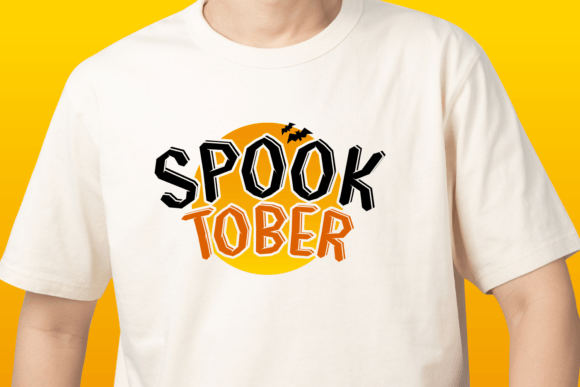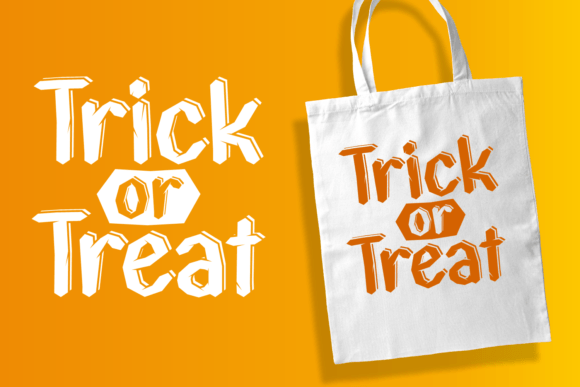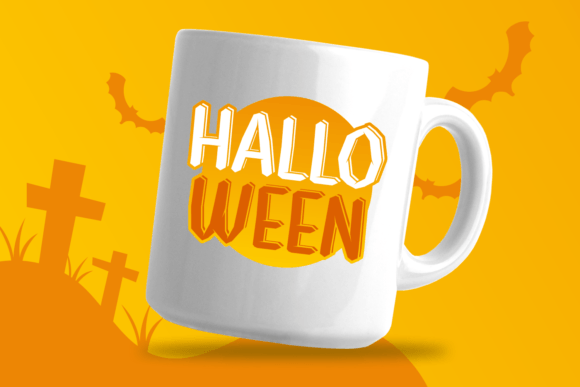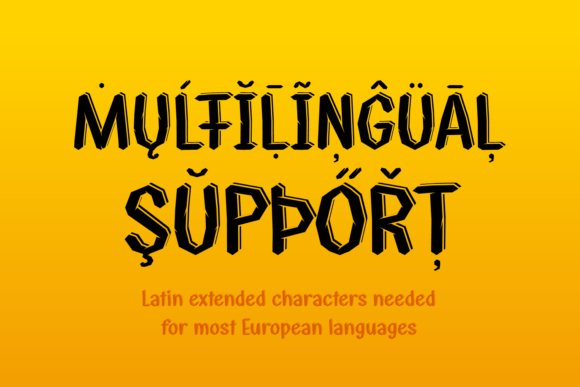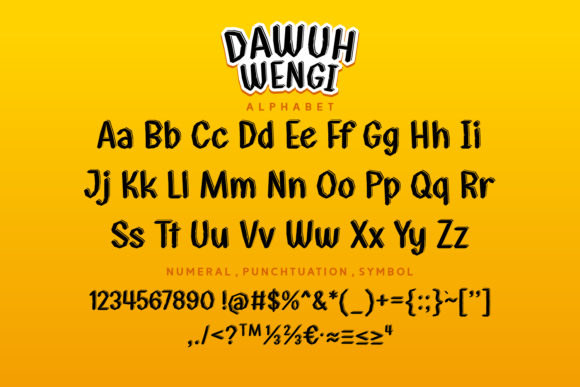
Dawuh Wengi Font: A Quirky and Versatile Display Font for Designers and Crafters
If you’re a designer or crafter looking for a unique and interesting display font to elevate your projects, look no further than Dawuh Wengi. This quirky font is sure to turn heads with its distinctive style, which works incredibly well in a wide variety of contexts. In this article, we’ll take a closer look at Dawuh Wengi, exploring its features, uses, and benefits for designers and crafters.
What is Dawuh Wengi Font?
Dawuh Wengi is a display font that stands out from the crowd with its unusual and eye-catching design. A little bit quirky, this font has a unique charm that makes it perfect for adding a touch of personality to your projects. Whether you’re working on a logo, poster, or social media graphic, Dawuh Wengi is sure to make a statement.
Key Features of Dawuh Wengi Font
So what makes Dawuh Wengi so special? Here are just a few of its key features:
• Unique and quirky design: Dawuh Wengi has a one-of-a-kind style that’s sure to grab attention.
• Versatile: This font works well in a wide range of contexts, from digital projects to print materials.
• Display font: Dawuh Wengi is designed specifically for display use, making it perfect for headlines, titles, and other prominent text elements.
Uses for Dawuh Wengi Font
Dawuh Wengi is a versatile font that can be used in a variety of projects, including:
• Logos and branding: Add a touch of personality to your logo or brand identity with Dawuh Wengi.
• Posters and flyers: Make a statement with your promotional materials using this eye-catching font.
• Social media graphics: Stand out on social media with Dawuh Wengi’s unique and attention-grabbing style.
• Packaging design: Add a touch of whimsy to your product packaging with this charming font.
So why should designers and crafters choose Dawuh Wengi for their projects? Here are just a few benefits:
• Adds personality: Dawuh Wengi’s unique style allows you to add a touch of personality to your projects.
• Versatile: This font can be used in a wide range of contexts, making it a great addition to your font library.
Tips for Using Dawuh Wengi Font
To get the most out of Dawuh Wengi, here are a few tips:
• Use it sparingly: As a display font, Dawuh Wengi is best used sparingly to add emphasis to key text elements.
• Pair it with a simple font: Balance out Dawuh Wengi’s quirky style with a simple font for body text.
• Experiment with colors: Dawuh Wengi looks great in a variety of colors, so don’t be afraid to experiment and find the perfect hue for your project.
Author Faris (7NTypes)
In conclusion, Dawuh Wengi is a unique and interesting display font that’s perfect for designers and crafters looking to add a touch of personality to their projects. With its quirky style, versatility, and ease of use, this font is sure to become a favorite in your font library. So why not give Dawuh Wengi a try today and see how it can elevate your designs?